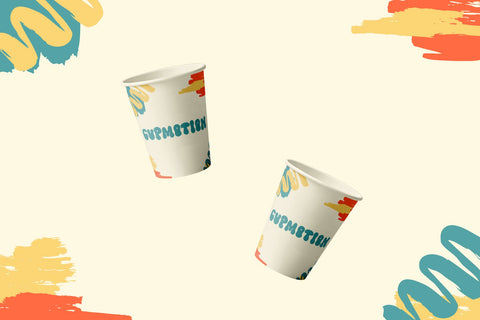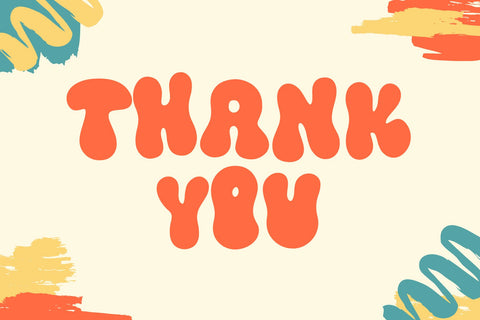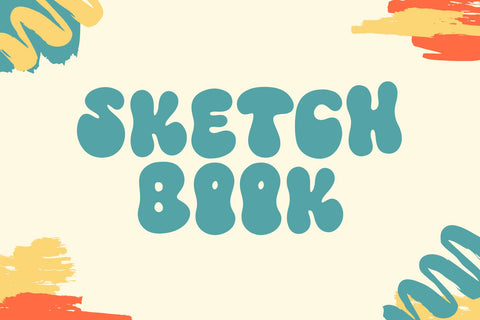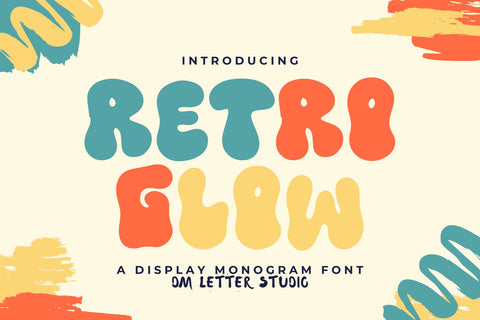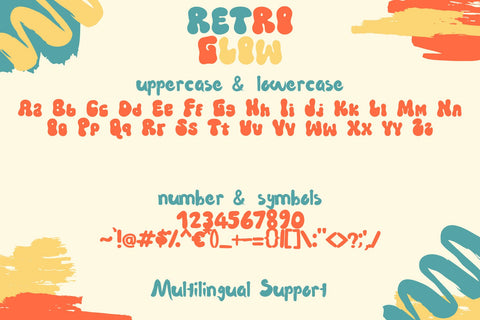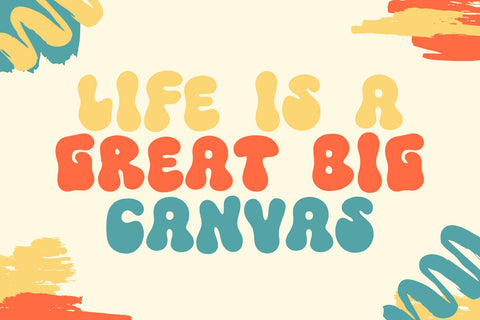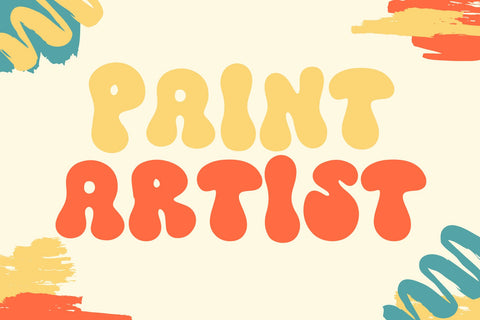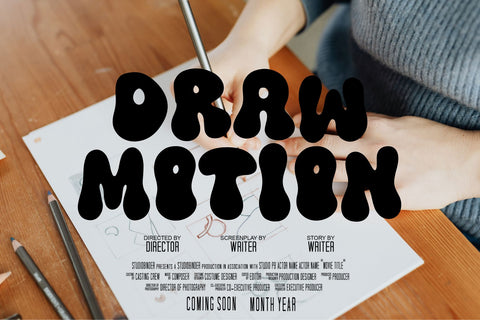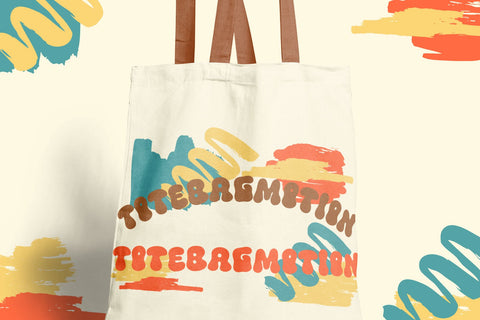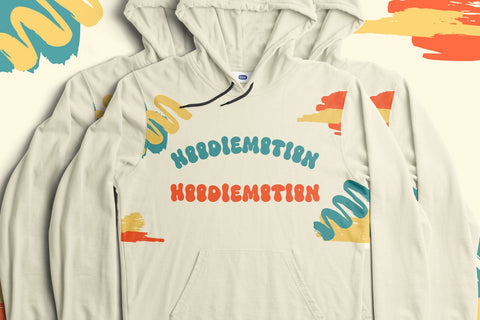
Retro Glow Font
Meet Retro Glow Font
Retro Glow Font brings neon nostalgia with clean, modern clarity. Letters feel bold and smooth. Angles stay sharp, yet the forms read fast on any screen. Because the shapes echo 80s posters and arcade titles, your words gain instant vibe. Use it for logos, covers, thumbnails, posters, and music promos. Moreover, it pairs easily with a simple sans, so layouts stay tidy.
Where Retro Glow Font shines
Set short titles, artist names, and punchy taglines. Then add glow, gradients, and star speckles to heighten the mood. Since spacing is tuned for headlines, pages build in minutes. As a result, you can launch full branding kits for DJs, streamers, and digital products. Plus, the strokes remain crisp at small sizes, which helps your thumbnails pop.
Fast setup, instant impact
Install the files and start designing in Canva, Photoshop, and Illustrator. Also, cutting apps handle the curves well, so decals and vinyl look clean. Consequently, your prints, covers, and social posts share the same strong style. Next, try palette sets in magenta with cyan, electric blue with purple, or charcoal with neon. Finally, reuse Retro Glow Font across banners and overlays to lock a clear identity.
Design tips for glowing titles
Keep copy short and let the letterforms lead. Pair big Retro Glow Font headlines with a light geometric body font. Meanwhile, use soft outer glow, chrome lines, and subtle noise for depth. Because the shapes are solid and geometric, grid backdrops and lens flares work nicely. However, avoid long sentences in tight spaces. The font hits hardest with tight phrases.
Clean outlines for sharp print and cutting
Why creators choose Retro Glow Font
You want a look that screams retro and still feels current. Retro Glow Font delivers. It grabs attention in crowded feeds, speeds layout, and scales from icon to billboard without losing edge.